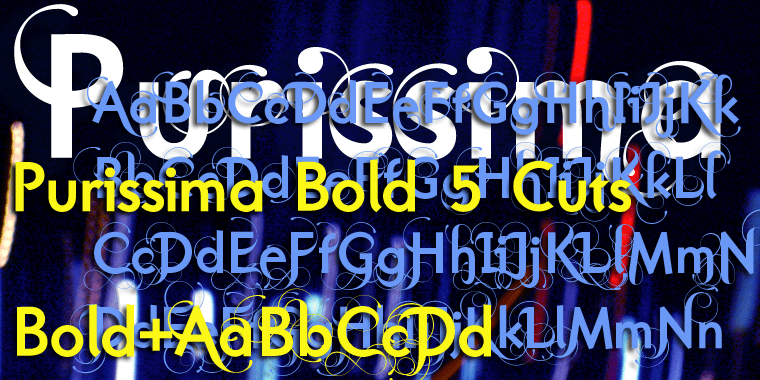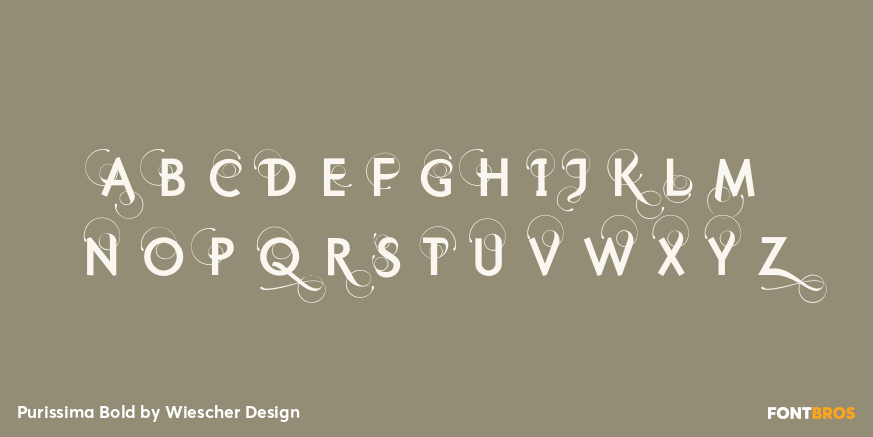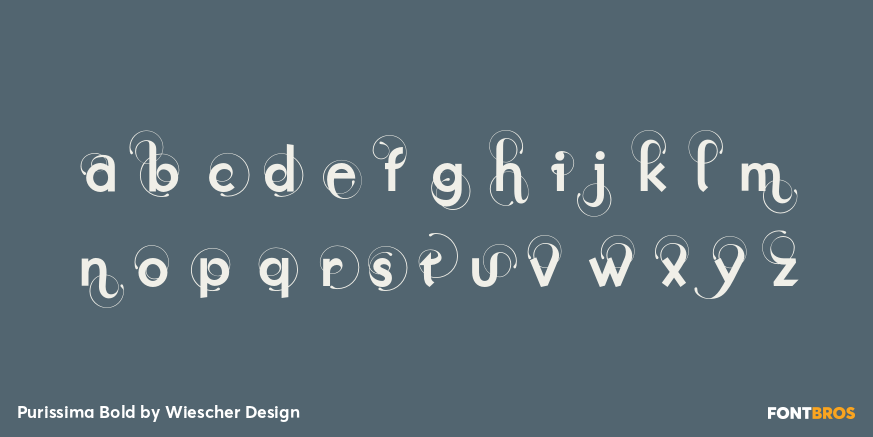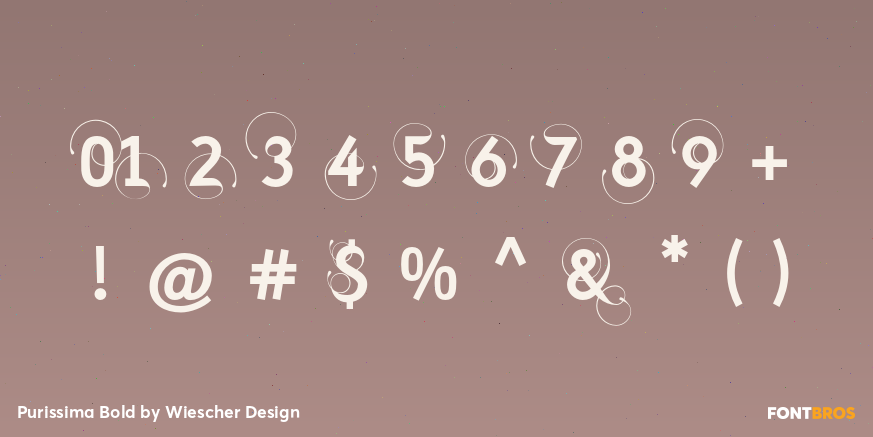
Purissima Bold
Font Family by Wiescher Design
The Boldcut has no embellishments. The A and B cuts are two fully embellished sets. The C and D cuts only have embellished initials, but those are driven to extremes. All five cuts can ? and should be mixed. But please don't overdo it!